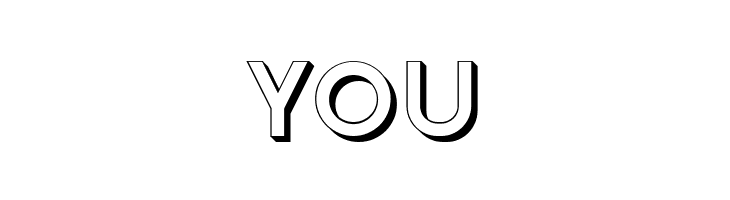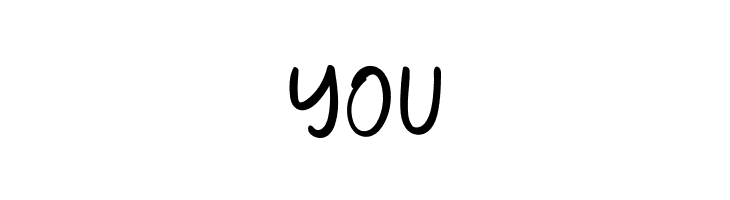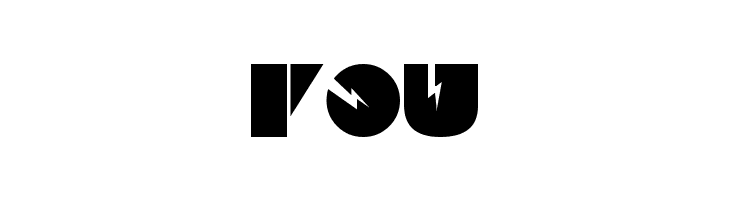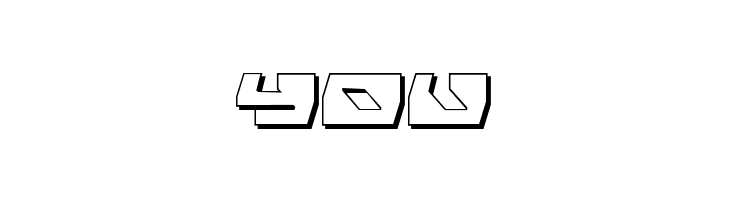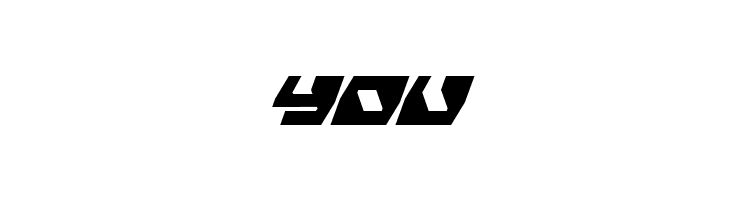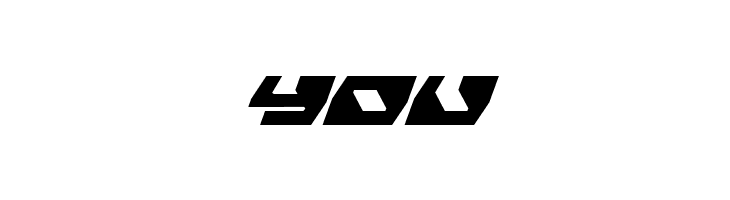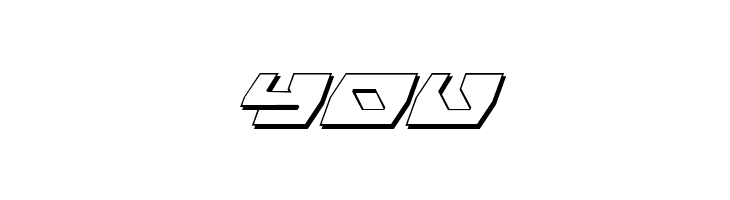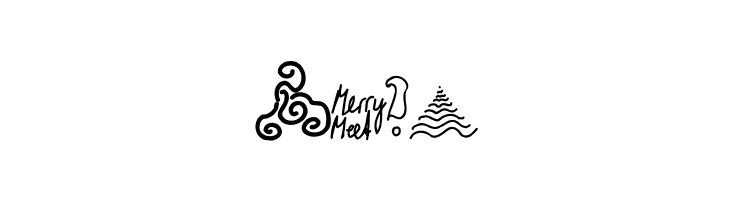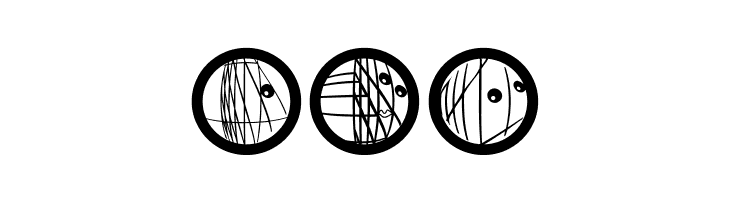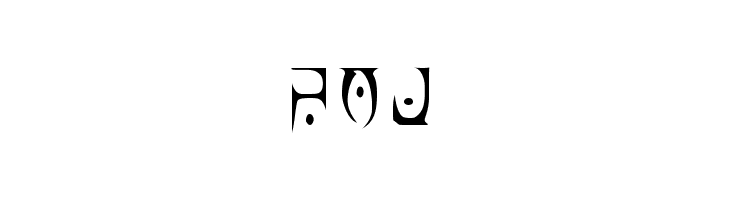
• Daddy Ink
A bold, hand-painted style font with a raw, energetic appearance.
• Daddy Longlegs NF
An ultra-condensed, elongated font with a modern, sleek aesthetic.
• Daddy Pig
( Fonts by rockcake )
A playful, rounded font with smooth curves and a friendly vibe.
• Daddy Rewind
A dynamic and flowing script font with elegant, cursive letterforms.
• Daddy Shark
A playful, handwritten font with smooth, rounded edges and a casual style.
• Daddy Tie
• daddy2
• DaddyBee
A bold, playful script font with rounded strokes and smooth curves.
• DaddyDontDisco
• DaddyGrid
Abstract circular symbols with intricate line patterns.
• DaddyinspaceDEMO
( Fonts by Pizzadude )
A bold, playful font with a hand-drawn, comic book style.
• DaddyLonglegsNF
A modern, ultra-condensed font with elongated, sleek characters.
• DaddysGirl
( Fonts by Vanessa Bays - bythebutterfly.com )
• Dadekno
( Fonts by wep )
A playful, bold, hand-drawn font with a casual and informal style.
• Dades Regular
A bold, geometric font with a modern, outlined design.
• Dadhand
( Fonts by www.tepidmonkey.net )
A playful, handwritten font with bold strokes and medium contrast.
• Dadine
A bold, playful font with a hand-drawn, artistic style.
• Dadiomouse
( Fonts by Darrell Flood )
A fluid and dynamic handwritten font with slanted, connected letters.
• DaDoodle